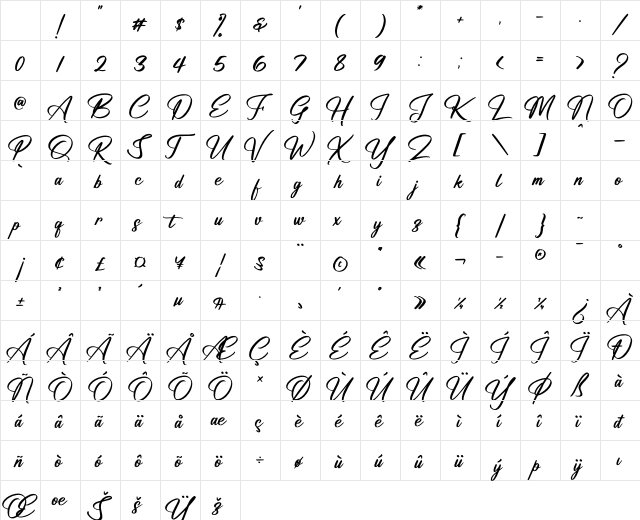
Complete Anthony Hunter Regular glyph index. Displaying only characters natively supported by Anthony Hunter Regular font.
Anthony Hunter is a composed and adaptable typeface that performs quietly and consistently across a wide range of design contexts.